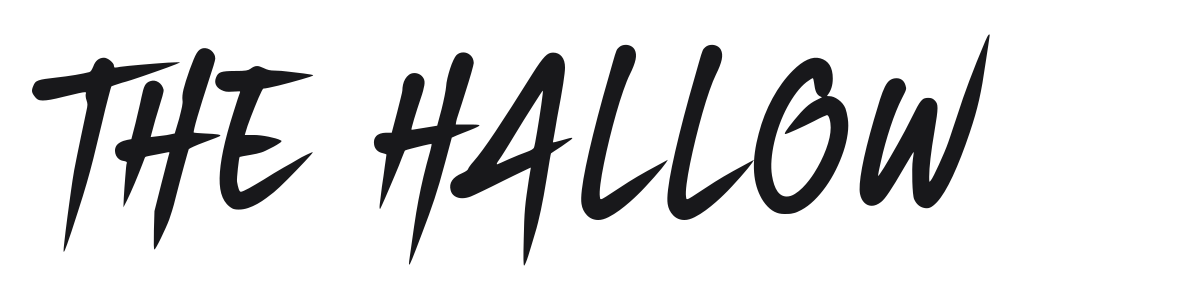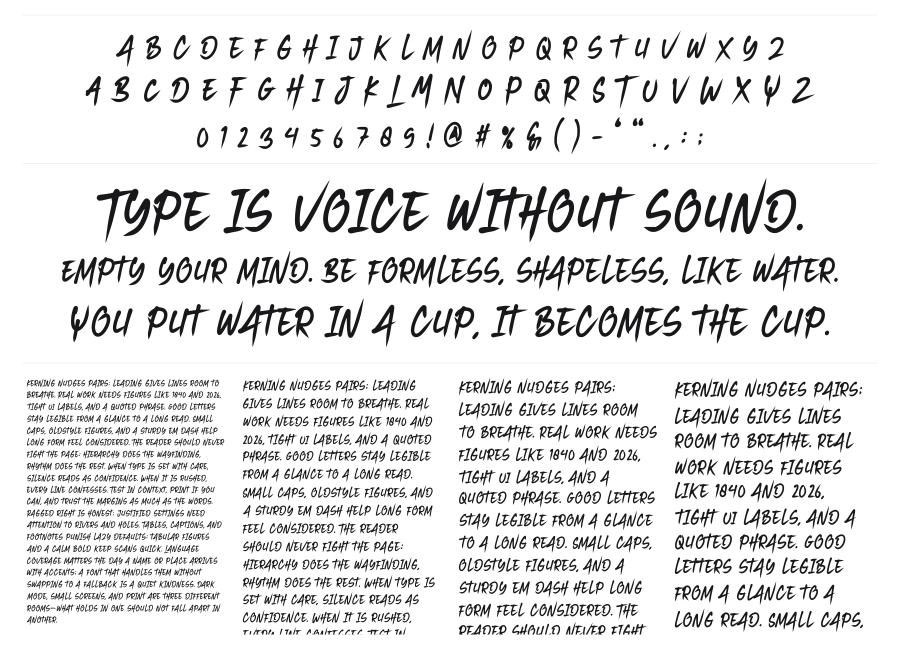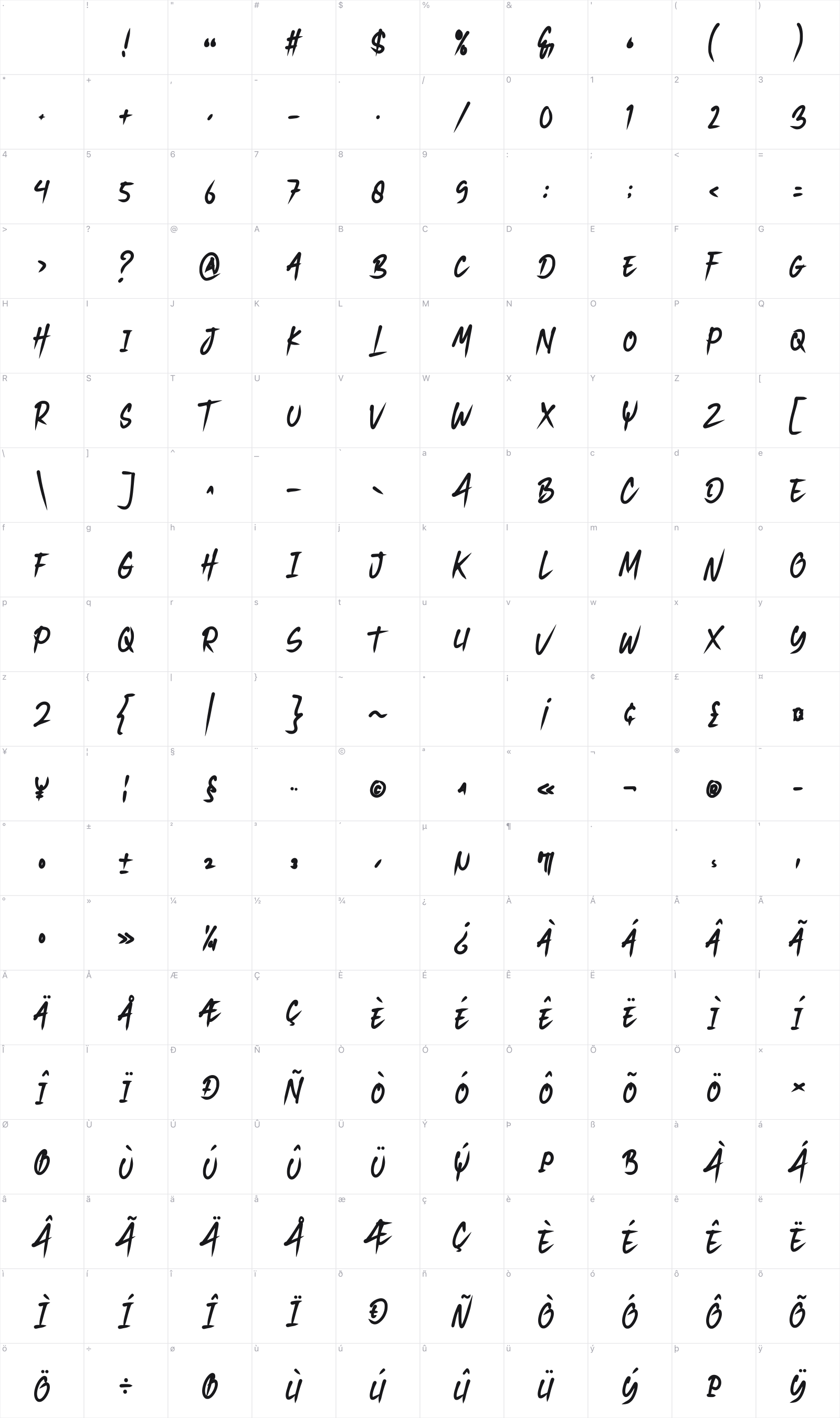
The Hallow
The Hallow is a bold brush script with a raw, aggressive italic slant and sharp, spiky terminals that lean hard into Halloween and horror aesthetics. Thick-to-thin stroke contrast gives it a hand-painted energy, somewhere between street-art marker and dripping signage. It commands attention at large sizes and suits anything that needs attitude.